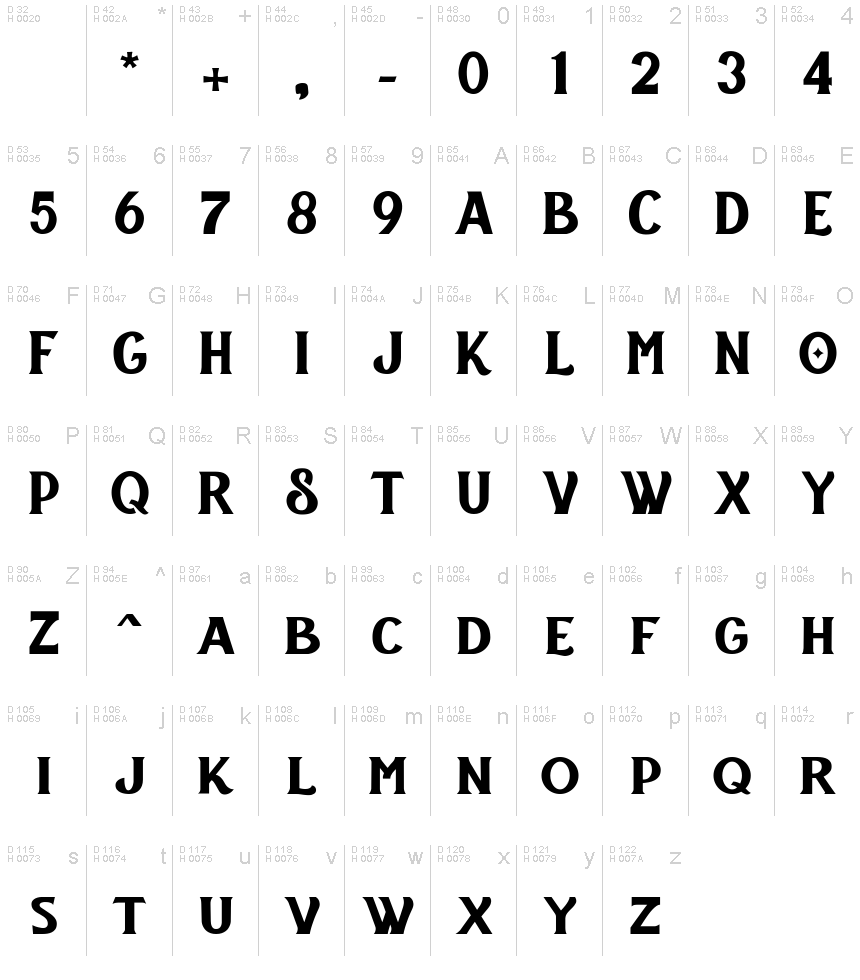
Stantire Demo Regular
Stantire is a bold, retro-inspired display font that emanates a sense of timeless elegance. Designed by Lettermine Studio, this font's striking letterforms exude a vintage charm, with thick strokes and distinctive serifs that lend an air of refined sophistication. Stantire's versatility shines through, making it a compelling choice for a wide range of applications, from eye-catching headlines and impactful logos to nostalgic branding and retro-themed design projects.
Its robust, confident presence ensures that it will command attention and leave a lasting impression on any visual canvas.